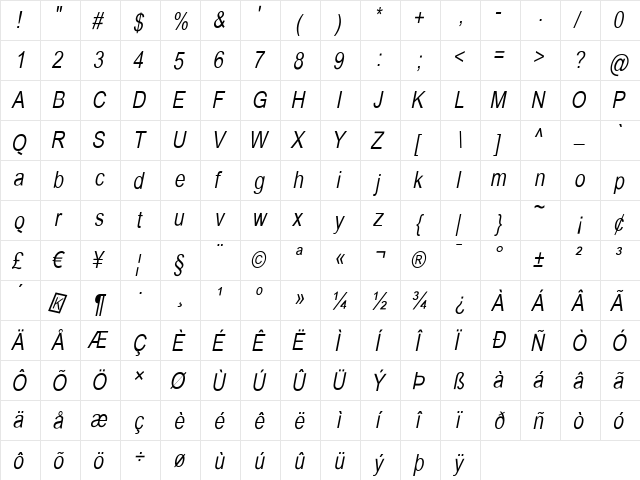
BabelSans Medium Italic Font Preview
BabelSans Medium Italic
Design Context for BabelSans Typeface
BabelSans offers clean, dependable letterforms without strong stylistic allegiance, making it a practical choice for designers who need flexibility. The slanted form adds forward momentum and visual energy.
Pro Tip: Use BabelSans for emphasis, pull quotes, and subheadings where its slanted energy can add rhythm to the layout.